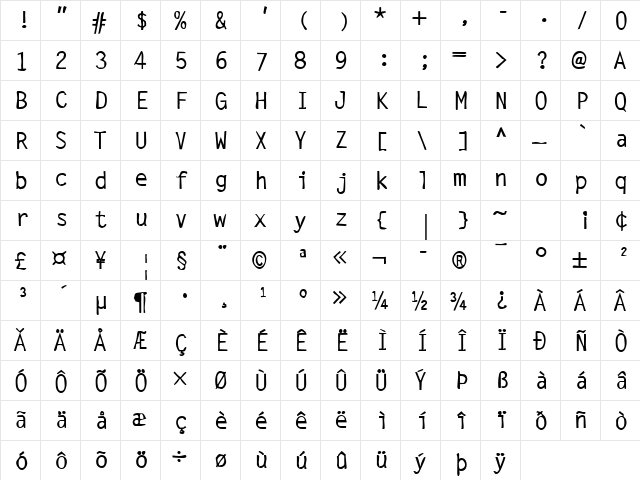
Dirty30 Becker Regular Font Preview
Dirty30 Becker Regular
Design Context for Dirty30 Becker Typeface
Dirty30 Becker takes a measured approach to typography — its balanced proportions and neutral character make it a reliable workhorse for both digital and print work.